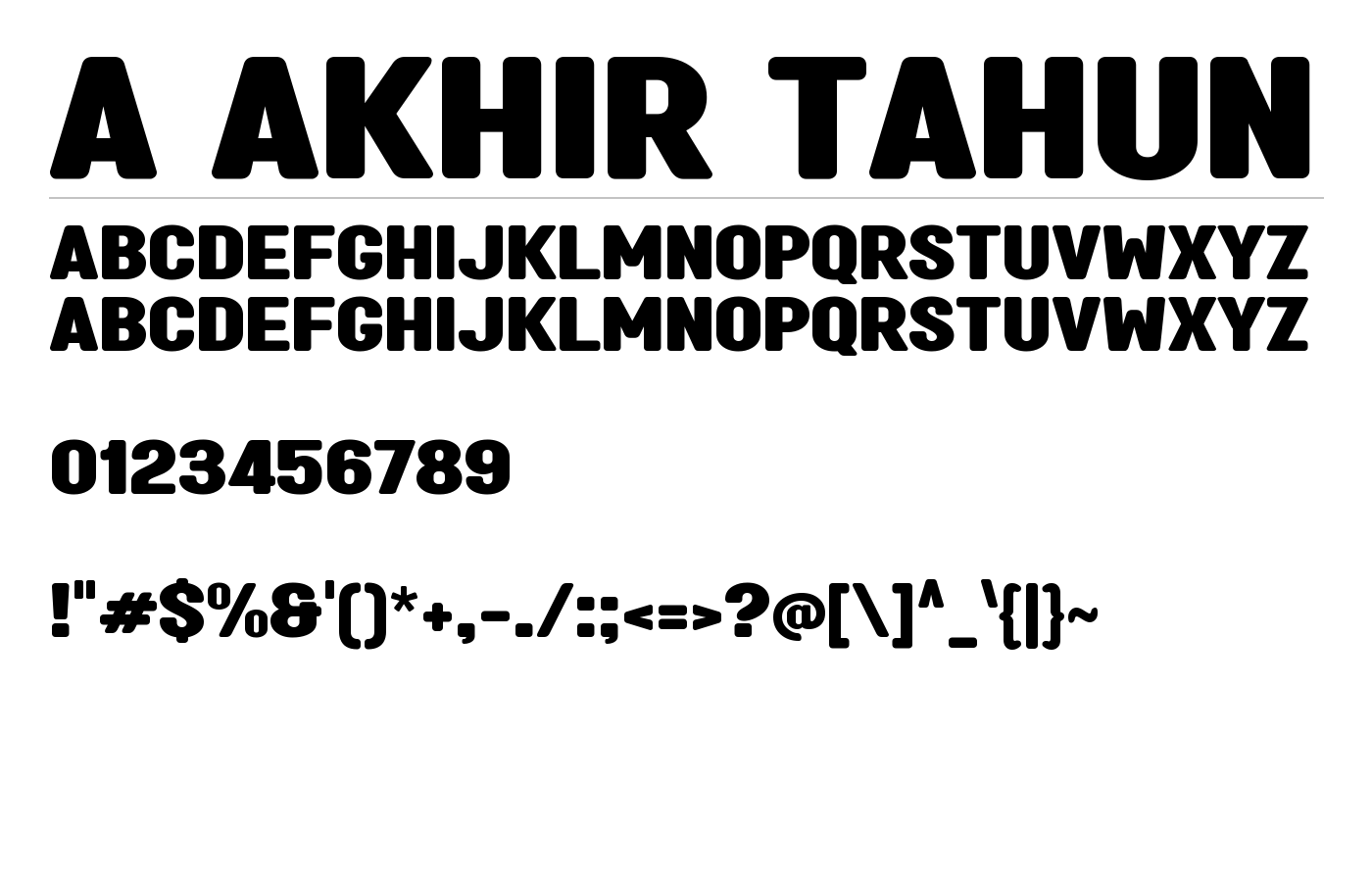
A Akhir Tahun is a bold, rounded sans serif font characterized by its sturdy, friendly appearance and uniform stroke weight. Its wide, slightly condensed letterforms with high x-height and clean edges make it highly legible, perfect for strong headlines and branding that needs a modern yet approachable feel. This font works well for packaging, posters, and logos, especially where a confident but warm impression is desired.
a Akhir Tahun Font
About a Akhir Tahun Font